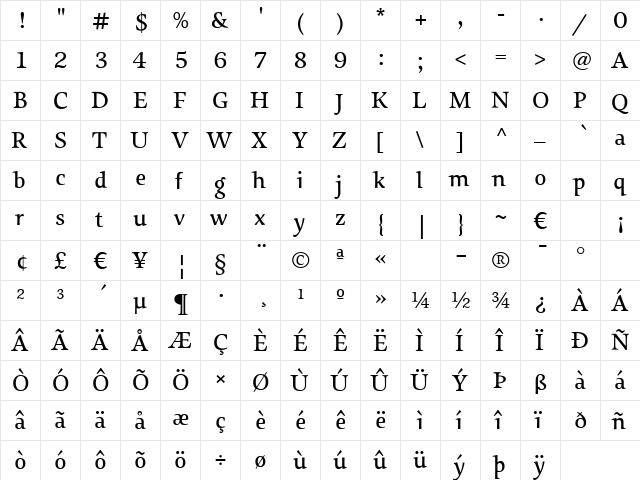
Sovereign-Medium Regular
Sovereign-Medium is a composed and adaptable typeface that performs quietly and consistently across a wide range of design contexts.
Pro Tip: Use Sovereign-Medium in both headline and body roles to test its range before committing to a single application.